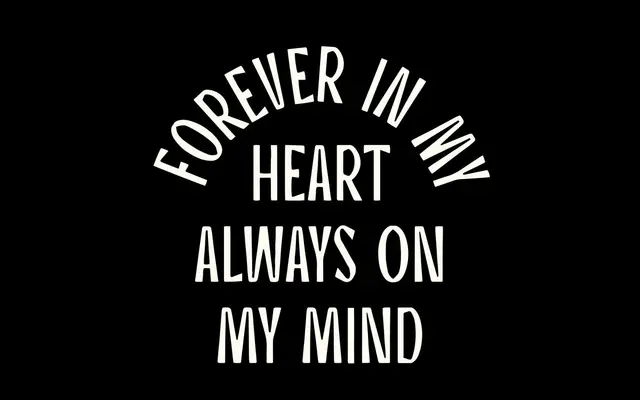
Napili
A single-weight casual display face with a relaxed, breezy character suited to branding, packaging and editorial headlines.
Available in one weight, Napili sits in the space between polished and easygoing, carrying enough personality for display use without tipping into kitsch. The 151-glyph set covers basic Latin with a limited range of accented characters, making it suitable for Western European languages. Reviewers have used it for book covers and client branding work, suggesting it holds up well at larger sizes.
A single-weight display face with a relaxed, tropical character described by the foundry as clean and breezy with polish, placing it firmly in casual display territory rather than a functional text category.